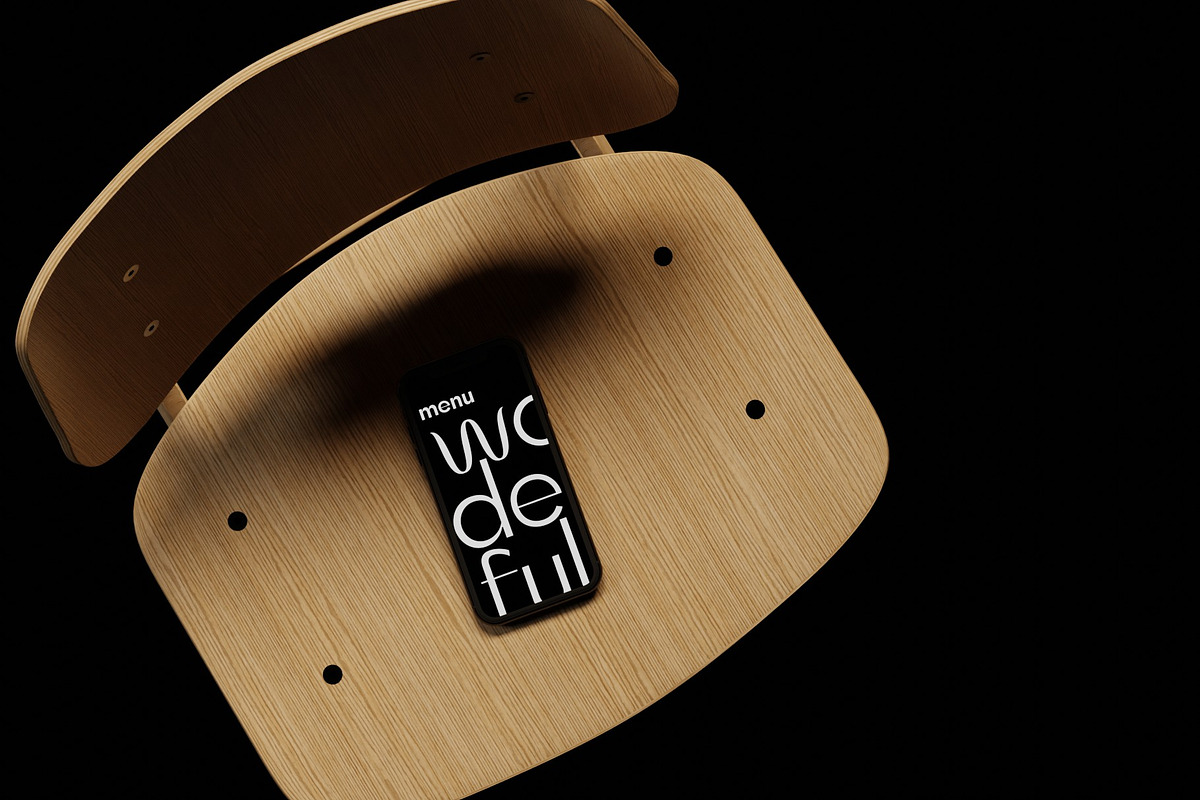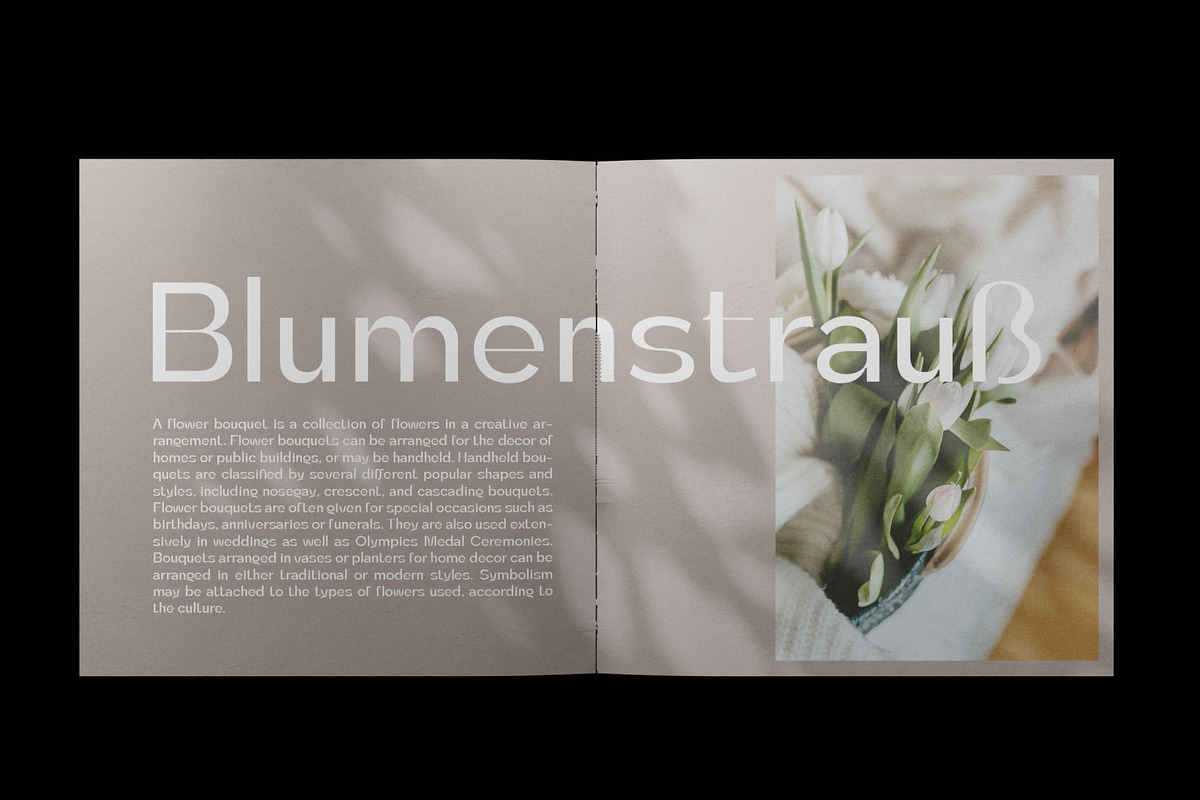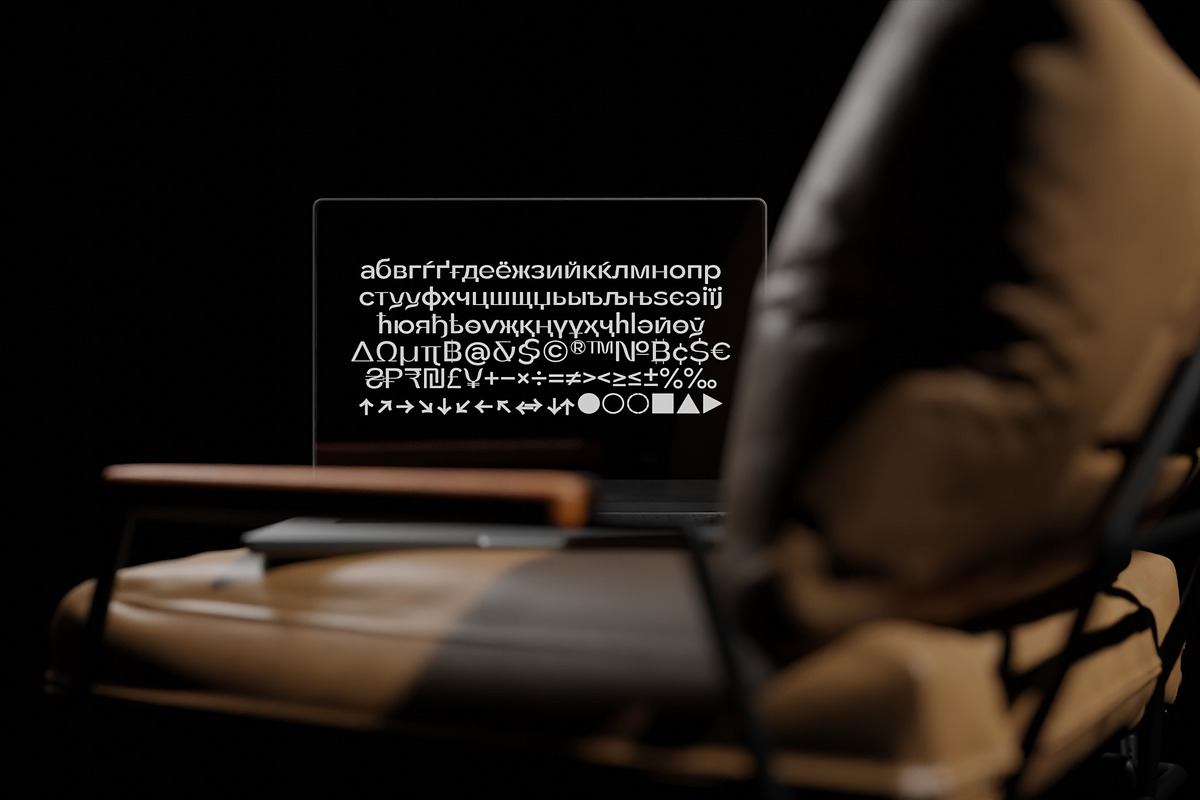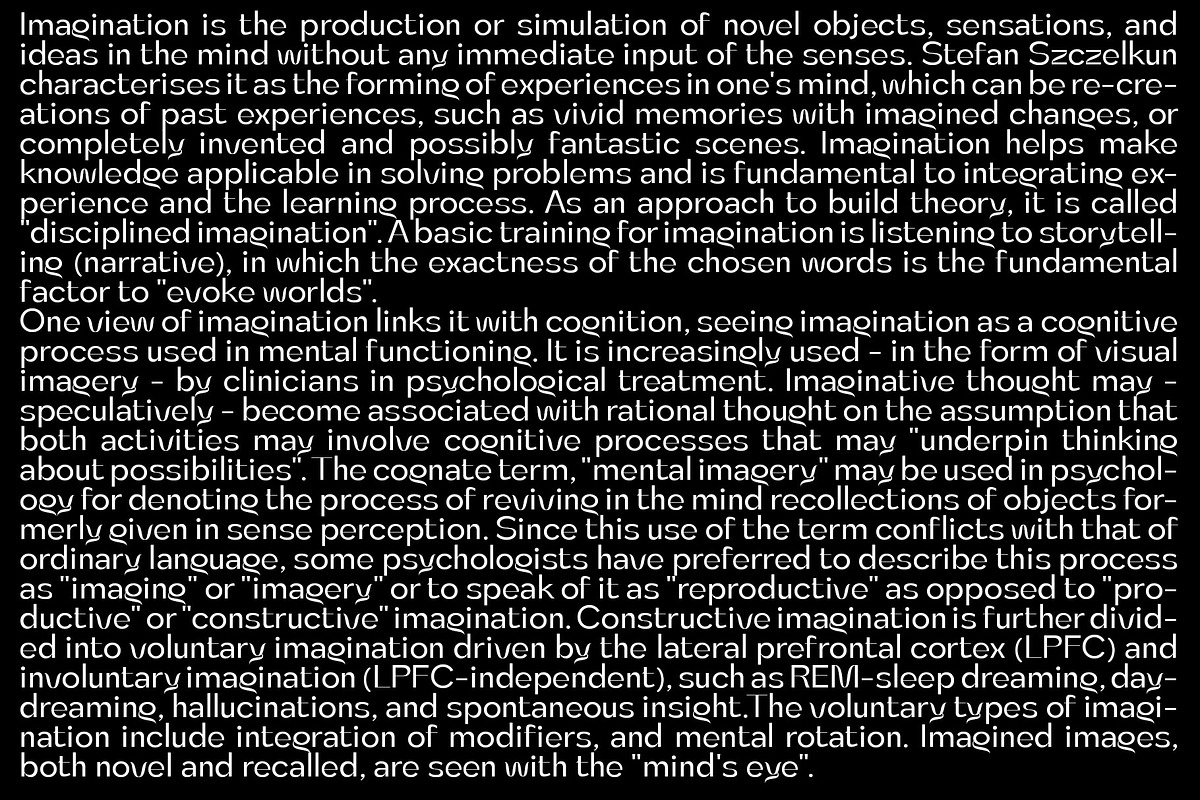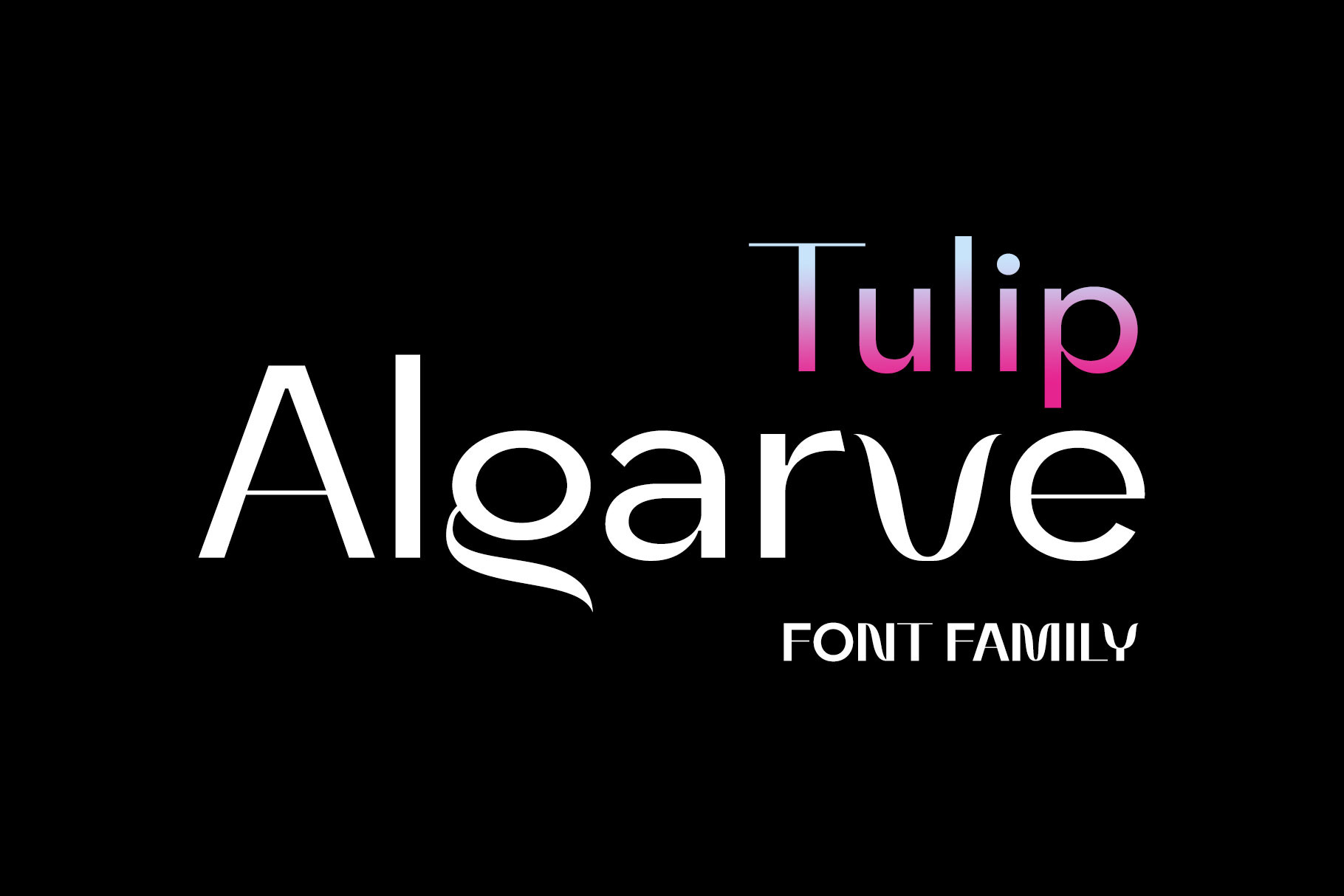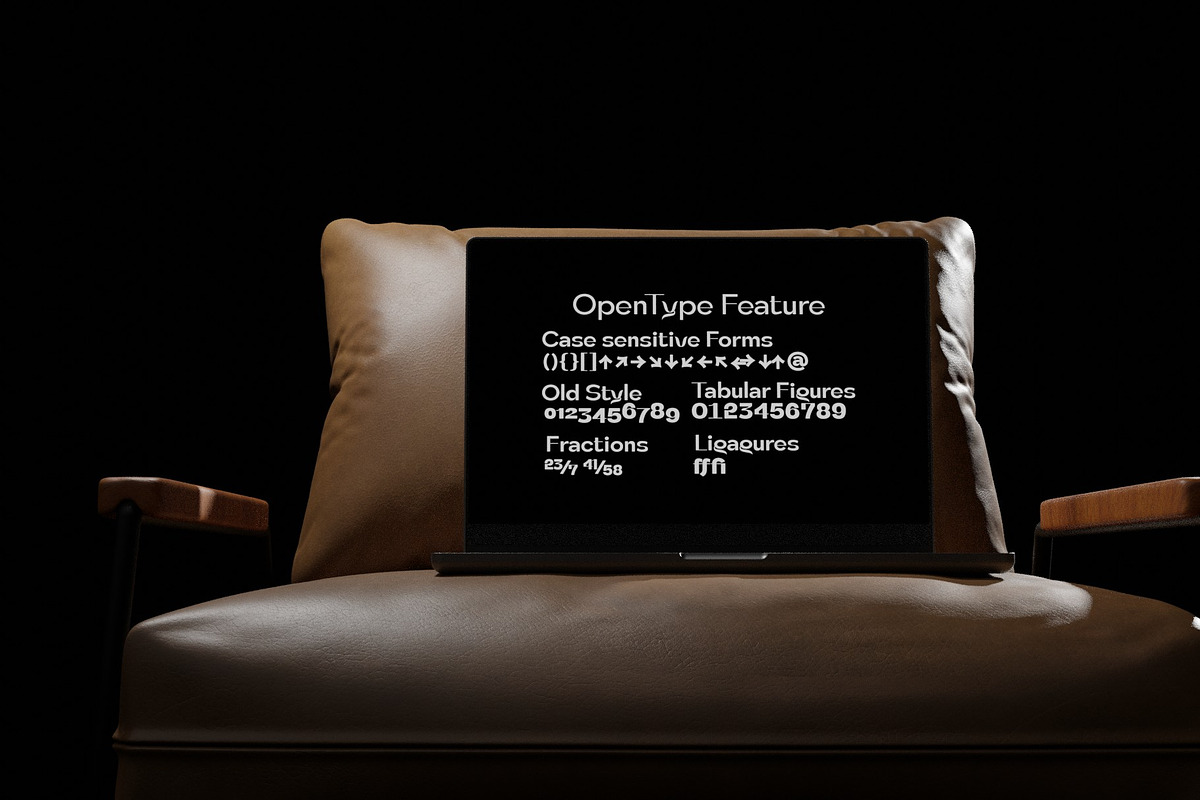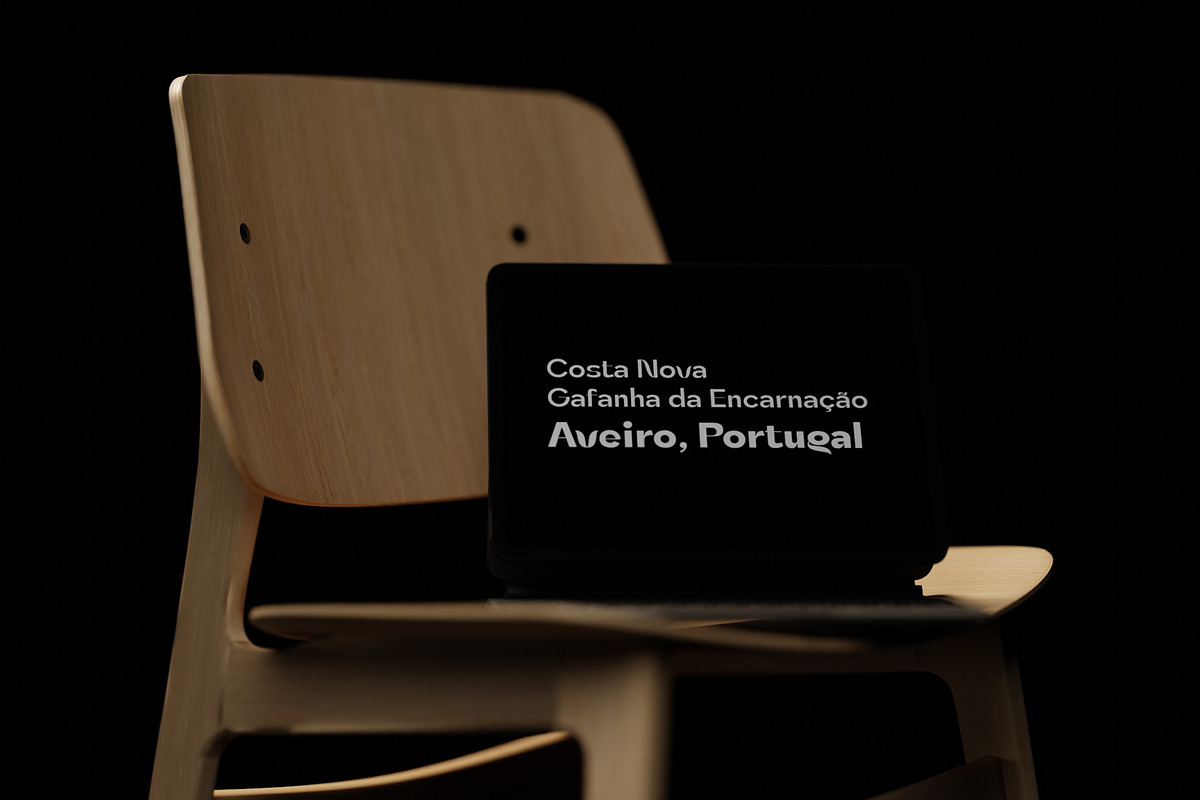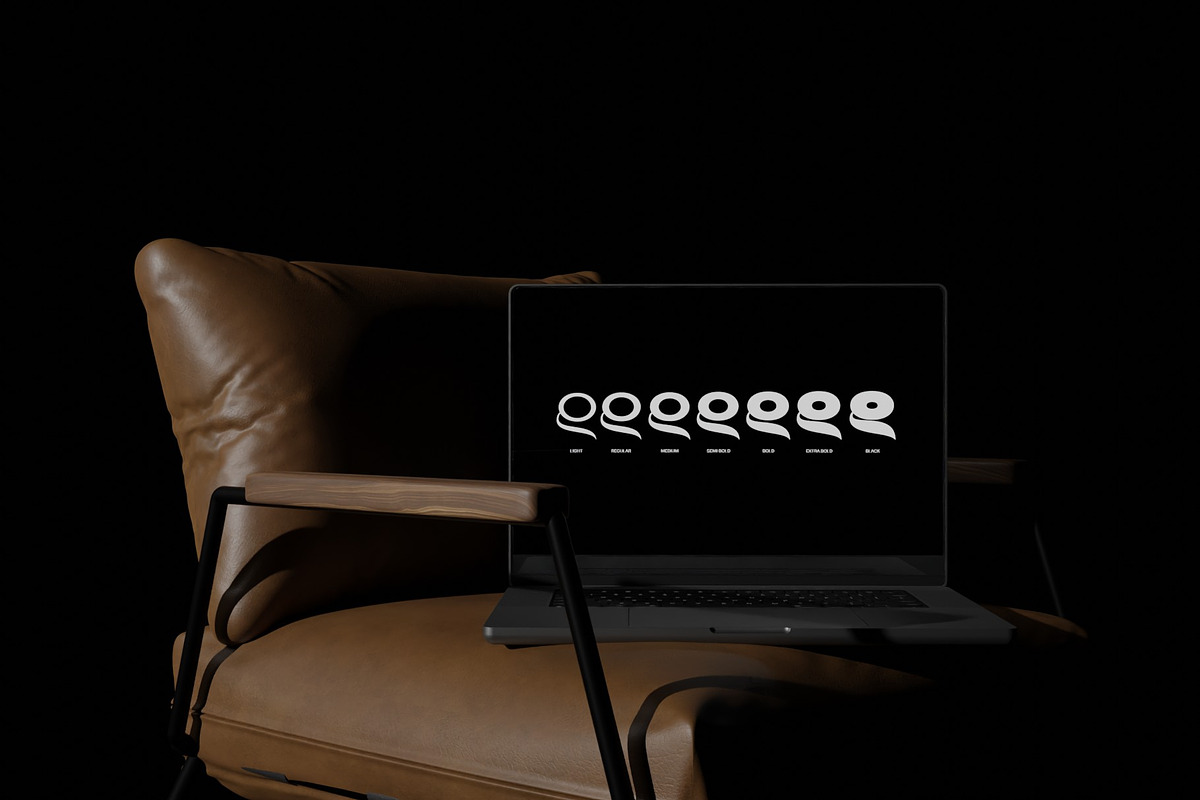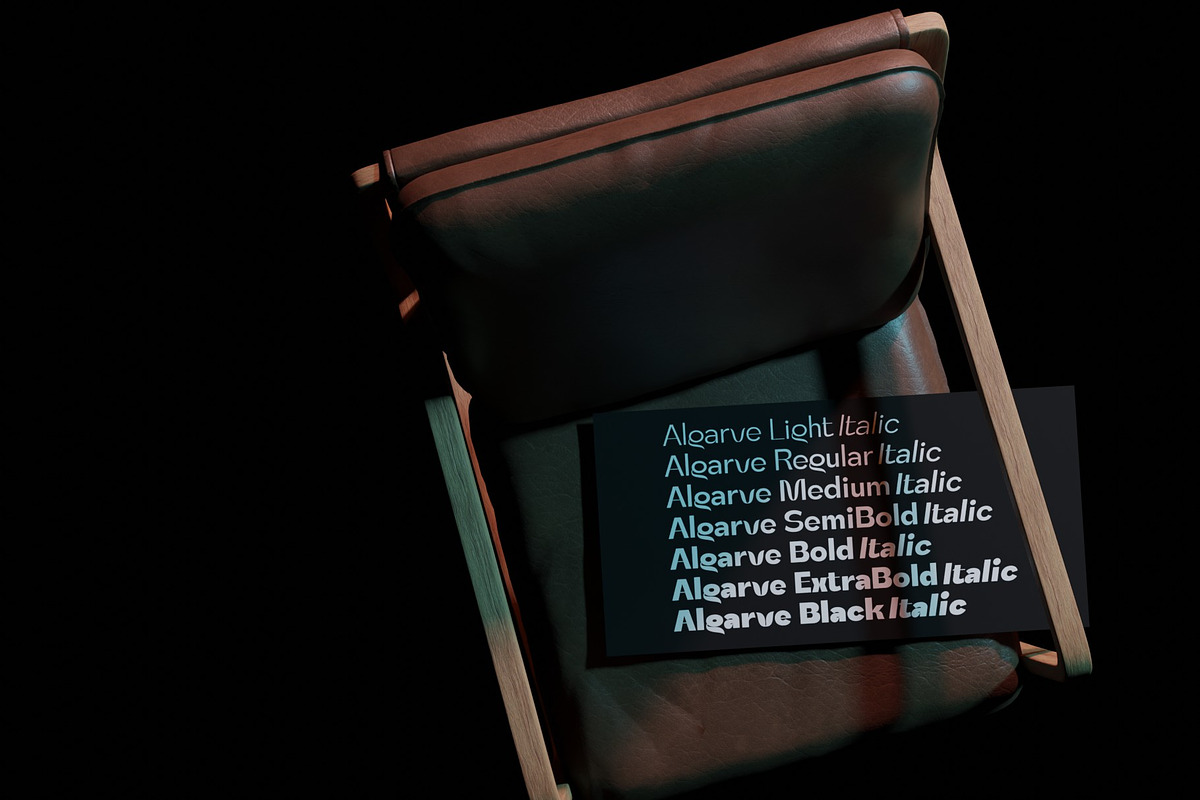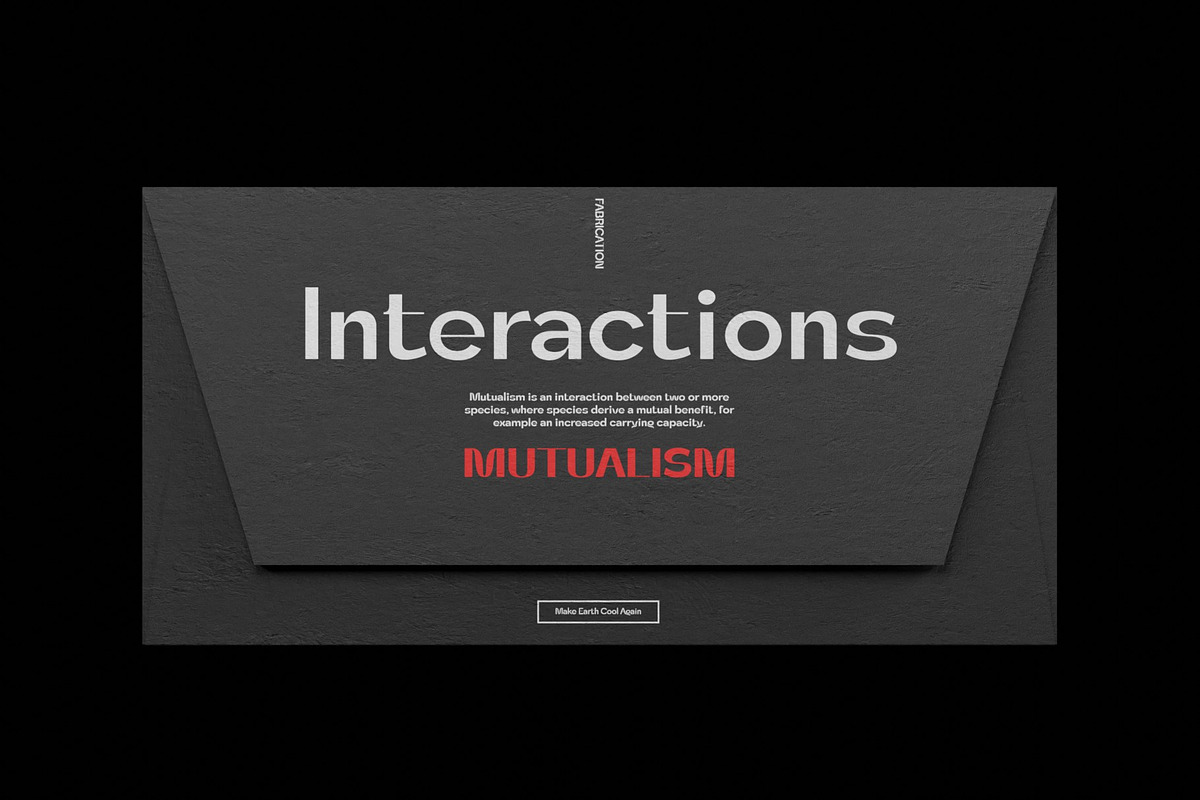
Tulip Algarve Font Family
Tulip Algarve font family showcases elegant and trendy glamour through a bold contrast between horizontal and vertical stems. The basic glyph design was inspired by the beautiful silhouette of a tulip flower, and a classical beauty was added to the typeface system. With a modern display sans serif personality, this type system will interact well with any layout design.
OpenType Features
- Standard Ligatures - ff, fi
- Fractions
- Oldstyle Figures
- Tabular Figures
- Case Sensitive Forms
- Western Europe, Central/Eastern Europe, Baltic, Turkish, Romanian
- Basic Cyrillic
- Ukraine